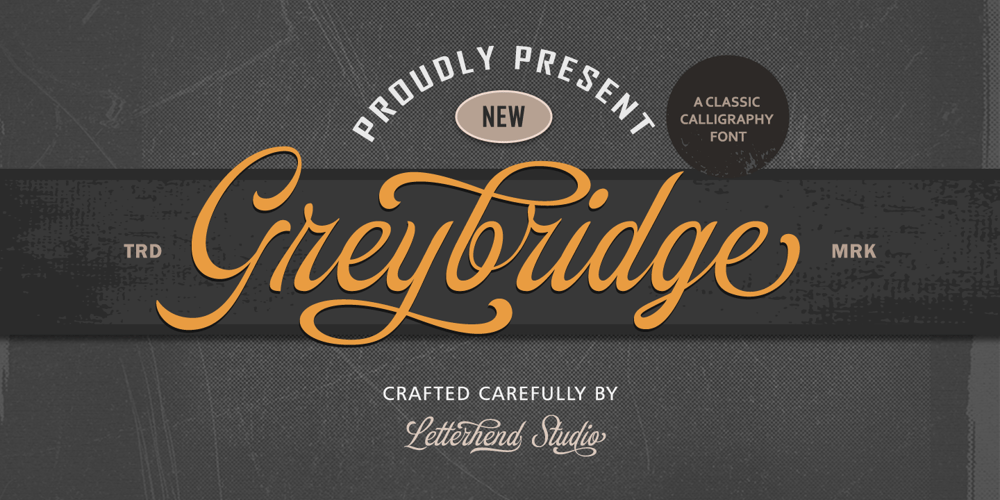
Greybridge
Greybridge font
Greybridge Font Family was designed by Hendry Juanda and published by Letterhend. Greybridge contains 1 styles and family package options. Introducing, Greybridge – Classic Calligraphy Typefce. This type of font perfectly made to be applied especially in logo, and the other various formal forms such as invitations, labels, logos, magazines, books, greeting / wedding cards, packaging, fashion, make up, stationery, novels, labels or any type of advertising purpose.Features : uppercase & lowercase numbers and punctuation multilingual alternates and swashes PUA encoded We highly recommend using a program that supports OpenType features and Glyphs panels like many of Adobe apps and Corel Draw, so you can see and access all Glyph variations.